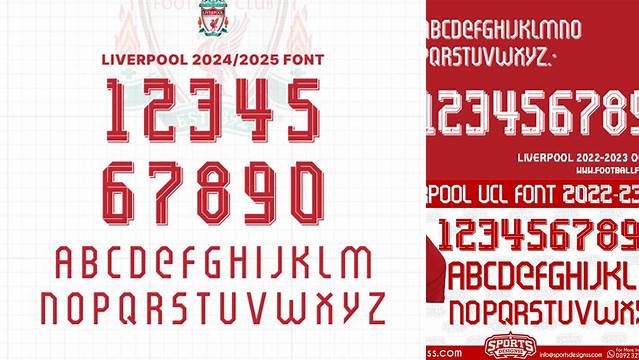
Liverpool Font 2026-22: Free Download & Usage Guide
Hey football fans! Are you a die-hard Liverpool supporter looking to add a touch of Anfield to your creative projects? Or maybe you're a designer aiming to capture the iconic Liverpool aesthetic? Well, you've come to the right place! In this comprehensive guide, we'll dive deep into the world of the Liverpool font 2026-22, offering you everything you need to know about downloading it for free, understanding its history, and using it effectively. This Liverpool font 2026-22 is more than just a typeface; it's a symbol of the club's rich history, its passionate fanbase, and its unwavering pursuit of glory. The distinctive lettering has graced the backs of legendary players like Mohamed Salah, Virgil van Dijk, and Jordan Henderson, becoming instantly recognizable to football fans around the globe. Whether you're creating social media graphics, designing posters, or even personalizing your own merchandise, this font is the perfect way to show your support for the Reds. But before you rush off to download it, let's explore the nuances of this iconic font. We'll discuss its origins, its evolution, and the best ways to use it in your projects. We'll also address the all-important question of where to find a reliable and free download, ensuring you avoid any potential copyright issues or malware risks. So, buckle up and get ready to immerse yourself in the world of the Liverpool font 2026-22. By the end of this guide, you'll be equipped with the knowledge and resources to use this font like a pro, adding a touch of Anfield magic to all your creative endeavors. Let's get started and explore how this font can help you express your love for Liverpool Football Club in style! This article will provide you with all the necessary information and resources to obtain and utilize the font effectively.
History of the Liverpool Font
The history of the Liverpool font is intertwined with the club's own story, reflecting its evolution and enduring legacy. Understanding its origins and design is key to appreciating its significance. The Liverpool font, as we know it today, has undergone several iterations throughout the club's history. In the early days, the font used on Liverpool jerseys was fairly standard, often reflecting the prevailing typographic trends of the time. However, as football became more commercialized and clubs sought to establish their brand identity, the font became an increasingly important element of their visual identity. The 2026-22 iteration of the Liverpool font is a modern and distinctive design that reflects the club's contemporary image. It's a bold, sans-serif typeface with a dynamic and energetic feel, perfectly capturing the spirit of the team's attacking style of play. The font was carefully crafted to be both legible and visually striking, ensuring it looks good on jerseys, merchandise, and digital platforms. It's a testament to the power of typography in creating a strong brand identity. The designers behind the Liverpool font understood the importance of creating a typeface that resonated with the club's fans and embodied its values. They drew inspiration from Liverpool's rich history and its passionate fanbase, creating a font that is both modern and timeless. One of the key characteristics of the Liverpool font is its versatility. It works equally well in uppercase and lowercase, and it can be used effectively in a variety of applications, from headlines to body text. This versatility makes it a valuable asset for designers and creatives who want to incorporate the Liverpool brand into their work. Over the years, the Liverpool font has become synonymous with the club's success. It has adorned the jerseys of legendary players, witnessed countless victories, and become a symbol of the club's unwavering ambition. When fans see the font, they immediately think of Liverpool Football Club, its history, and its future. The font has become an integral part of the club's identity, a visual shorthand for the passion, pride, and tradition that define Liverpool Football Club. This connection between the font and the club's identity makes it a powerful tool for communication and branding. By using the Liverpool font, you're not just using a typeface; you're tapping into the rich history and legacy of one of the world's most iconic football clubs.
Using the Liverpool Font: Design Tips
Once you've got your hands on the Liverpool font, the fun begins! Here are some design tips to help you use it effectively and create eye-catching visuals. Using the Liverpool font effectively is about more than just slapping it on a design. It's about understanding its character and using it in a way that complements your overall message. This font, with its strong and sporty aesthetic, is a powerful tool for evoking the spirit of Liverpool Football Club. But like any tool, it needs to be used with care and precision to achieve the desired results. So, how do you harness the power of the Liverpool font to create designs that are both visually appealing and true to the club's identity? One of the first things to consider is the context in which you're using the font. Is it for a social media post, a poster, or a website? The design principles will vary depending on the medium. For example, a font that looks great on a large poster may not be as legible on a small mobile screen. So, it's important to tailor your font usage to the specific requirements of the project. Another key factor is the color palette. The Liverpool font, with its bold lines and strong presence, works well with a range of colors. However, to truly capture the essence of the club, you'll want to incorporate Liverpool's signature colors: red, white, and yellow. These colors are deeply ingrained in the club's history and identity, and they will instantly evoke a sense of Liverpool pride. In terms of typography, it's important to use the Liverpool font sparingly and strategically. Overusing the font can make your design look cluttered and overwhelming. Instead, use it for headlines, titles, and other key elements that you want to stand out. For body text, consider using a more neutral font that is easy to read. Pairing fonts effectively is an art in itself. The Liverpool font, with its strong personality, works well with clean and modern sans-serif fonts. Avoid pairing it with overly ornate or decorative fonts, as this can create a jarring contrast. Think of it as assembling a football team – you need a balance of different skills and personalities to achieve success. When using the Liverpool font, pay attention to kerning and leading. Kerning is the spacing between individual letters, while leading is the spacing between lines of text. Adjusting these settings can significantly impact the readability and visual appeal of your design. Proper kerning and leading will make your text look more polished and professional. Finally, remember that design is an iterative process. Don't be afraid to experiment with different font sizes, colors, and layouts until you find something that works. Get feedback from others and be willing to make changes. The key is to keep refining your design until it achieves your desired outcome. By following these design tips, you can use the Liverpool font to create stunning visuals that capture the spirit of Liverpool Football Club. So, go ahead and unleash your creativity, and let the Liverpool font help you tell your story.
Font Pairing
Pairing the Liverpool font with a clean sans-serif for body text can create a balanced and professional look. Avoid overly decorative fonts that may clash. Choosing the right font pairing is like finding the perfect dance partner – the goal is to create a harmonious and visually appealing combination. The Liverpool font, with its bold and sporty character, is a strong personality in its own right. So, when pairing it with another font, you need to choose wisely to avoid creating a visual clash. Think of it as assembling a football team – you need a balance of different skills and personalities to achieve success. What are the key principles of effective font pairing? The first is to consider the contrast between the fonts. You want to choose a font that complements the Liverpool font without competing with it. A good way to achieve this is to pair the Liverpool font with a clean and neutral sans-serif font for body text. Sans-serif fonts, with their simple and modern aesthetic, provide a visual contrast to the Liverpool font's bold and dynamic lines. This creates a balanced and professional look that is easy on the eyes. Some popular sans-serif fonts that pair well with the Liverpool font include Helvetica, Arial, and Open Sans. These fonts are highly legible and versatile, making them ideal for body text and other supporting elements in your design. Avoid pairing the Liverpool font with overly decorative or script fonts. These fonts, with their intricate details and flourishes, can clash with the Liverpool font's strong personality, creating a cluttered and confusing visual experience. Think of it as wearing two different patterns at the same time – it can be overwhelming and distracting. Another important consideration is the font weight. The Liverpool font is typically used in a bold or heavy weight, so it's best to choose a lighter weight for your supporting font. This creates a visual hierarchy that helps guide the reader's eye through your design. The headline, set in the bold Liverpool font, will stand out, while the body text, set in a lighter sans-serif font, will provide the necessary context and information. In addition to sans-serif fonts, you can also experiment with serif fonts for a more classic and elegant look. However, it's important to choose a serif font that is clean and modern, rather than one that is overly ornate or traditional. Some serif fonts that pair well with the Liverpool font include Roboto Serif and Noto Serif. Ultimately, the best way to find the perfect font pairing is to experiment and see what works best for your specific project. Try different combinations and get feedback from others. The key is to choose fonts that complement each other and create a cohesive and visually appealing design. Remember, font pairing is an art, not a science. So, have fun and let your creativity shine!
Color Palette Considerations
Sticking to Liverpool's traditional colors (red, white, and yellow) will enhance the font's connection to the club. Consider contrast for readability. The color palette you choose can have a profound impact on the overall effectiveness of your design. Colors evoke emotions, create moods, and communicate messages. When using the Liverpool font, it's essential to consider the color palette carefully to ensure that it complements the font's character and reinforces the message you're trying to convey. One of the most effective ways to enhance the Liverpool font's connection to the club is to stick to Liverpool's traditional colors: red, white, and yellow. These colors are deeply ingrained in the club's history and identity, and they will instantly evoke a sense of Liverpool pride. Red is the club's primary color, and it represents passion, energy, and determination. White symbolizes purity and tradition, while yellow adds a touch of vibrancy and optimism. By incorporating these colors into your design, you can create a strong visual link to Liverpool Football Club. However, simply using the club's colors is not enough. You also need to consider the contrast between the colors to ensure readability and visual appeal. Contrast is the difference in color or brightness between different elements in your design. A high level of contrast makes it easier to read text and distinguish between different elements, while a low level of contrast can make your design look muddy and difficult to decipher. When using the Liverpool font in red, for example, it's important to use a contrasting background color, such as white or yellow. This will make the text stand out and improve readability. Avoid using red text on a dark background, as this can be difficult to read and can strain the eyes. In addition to contrast, you also need to consider the overall mood and tone of your design. Colors can evoke different emotions and create different atmospheres. For example, red is often associated with excitement and passion, while blue is associated with calmness and tranquility. When choosing a color palette for your design, think about the message you want to communicate and the emotions you want to evoke. If you're creating a design to celebrate a Liverpool victory, you might want to use a vibrant and energetic color palette that includes red, yellow, and other bold colors. On the other hand, if you're creating a more somber design, you might want to use a more muted and understated color palette. Ultimately, the best color palette for your design will depend on the specific context and your creative vision. Experiment with different color combinations and get feedback from others. The key is to choose colors that complement the Liverpool font, enhance readability, and reinforce the message you're trying to convey. Remember, color is a powerful tool in design. Use it wisely to create visuals that are both beautiful and effective.